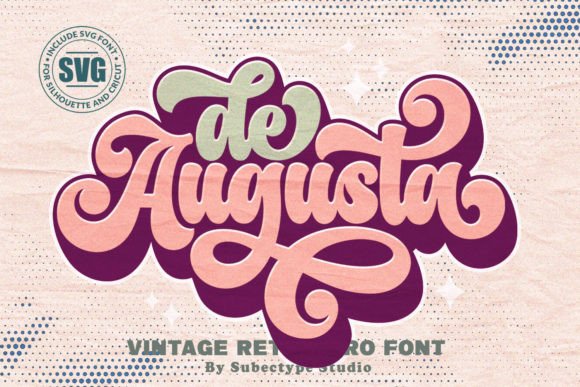
Introducing De Augusta, the vintage retro font created by Subectype. Inspired by the typography and lettering styles of the 70s and 80s, De Augusta is a bold and captivating font perfect for vintage and retro designs.
With its strong and stylish letterforms, De Augusta is ideal for creating eye-catching logos, badges, t-shirts, posters, book covers, and much more. This decorative font is a perfect fit for anyone looking to add a touch of nostalgia to their designs.
The font is PUA encoded, which means you can access all the glyphs and swashes with ease, making it a flexible and versatile tool for your creative arsenal. Whether you're a professional graphic designer or a hobbyist, De Augusta is an excellent choice for any project that requires a vintage vibe.
What sets De Augusta apart from other retro fonts is its unique combination of retro typography and bold letterforms. The font captures the essence of vintage design while maintaining a modern edge. The result is a font that is both nostalgic and fresh, making it a must-have for any designer who wants to stand out from the crowd.
So, whether you're designing packaging, branding, signage, or any other creative project, De Augusta is the perfect font to help you make a bold statement. With its striking design and easy-to-use features, De Augusta is sure to be a hit with designers of all levels.